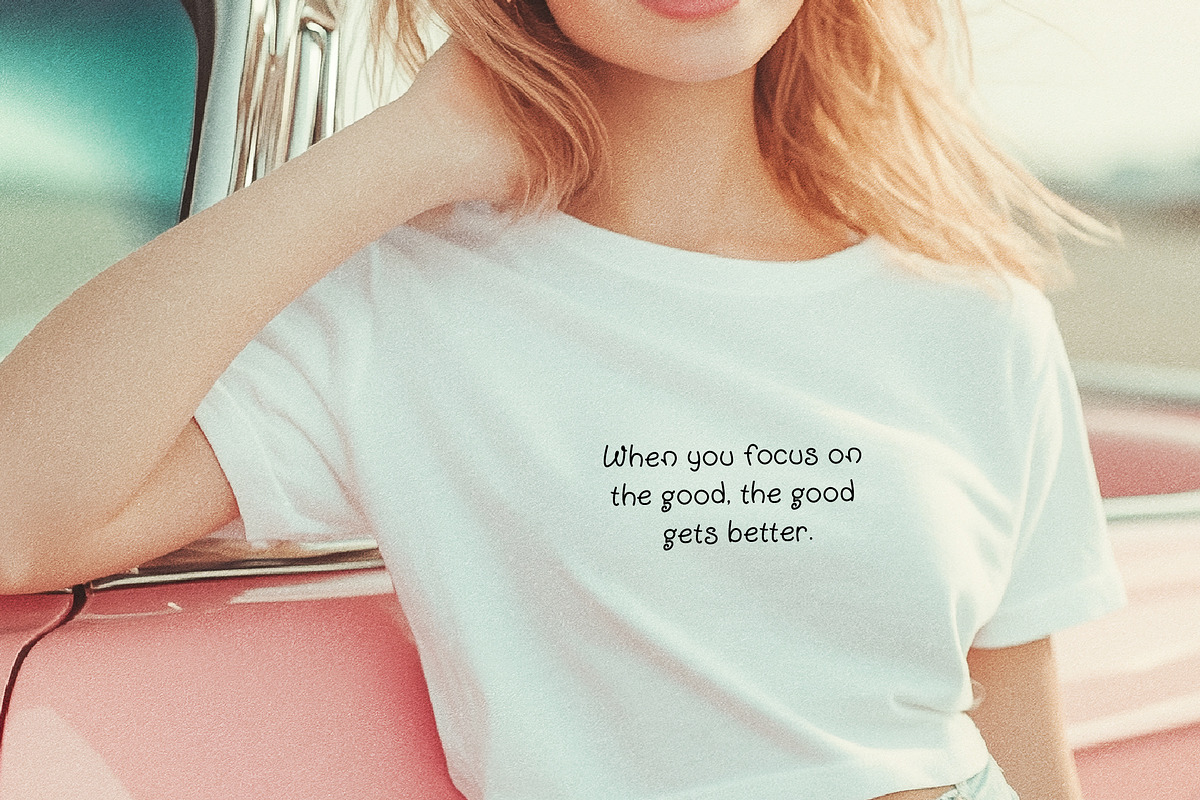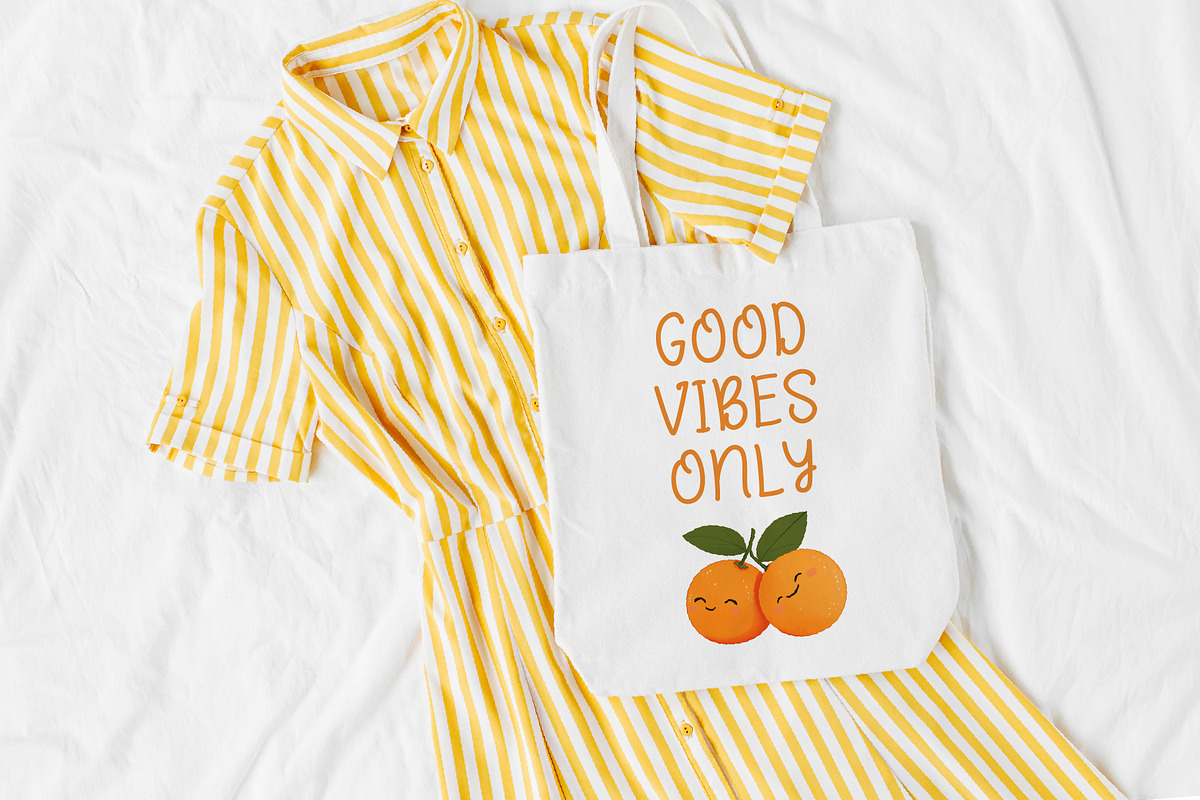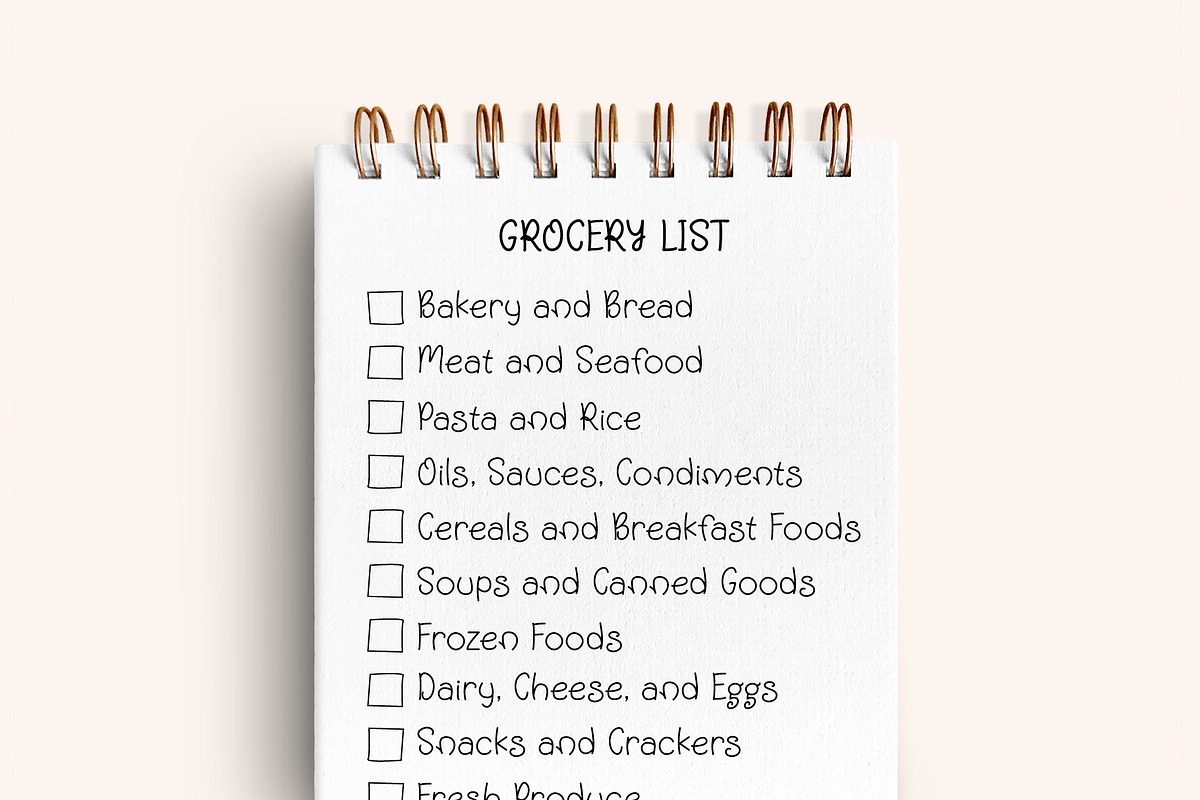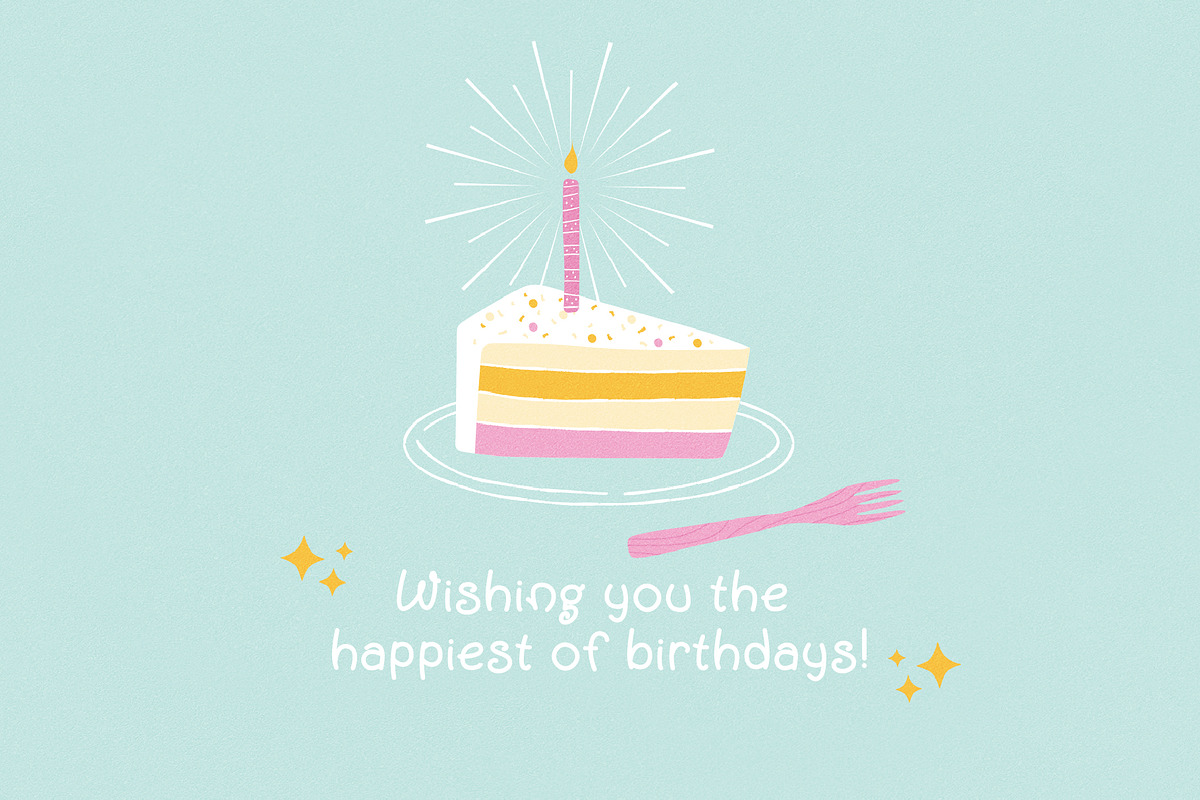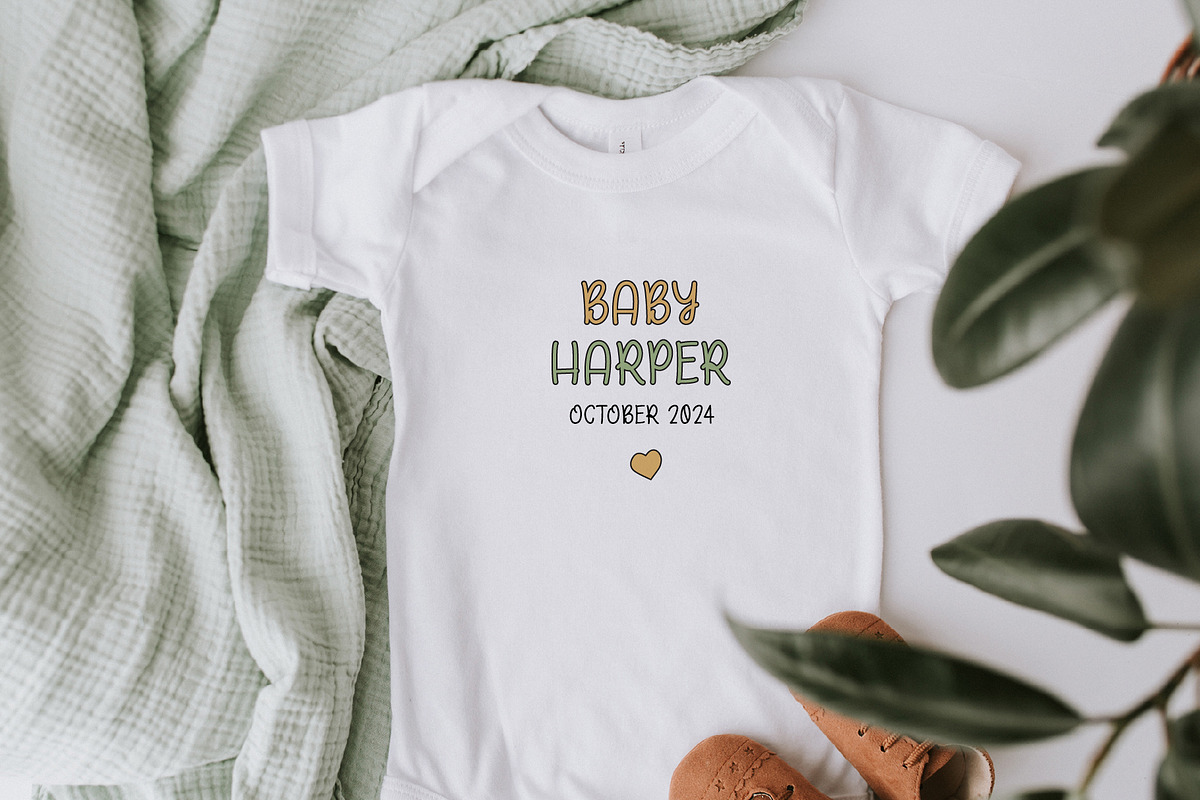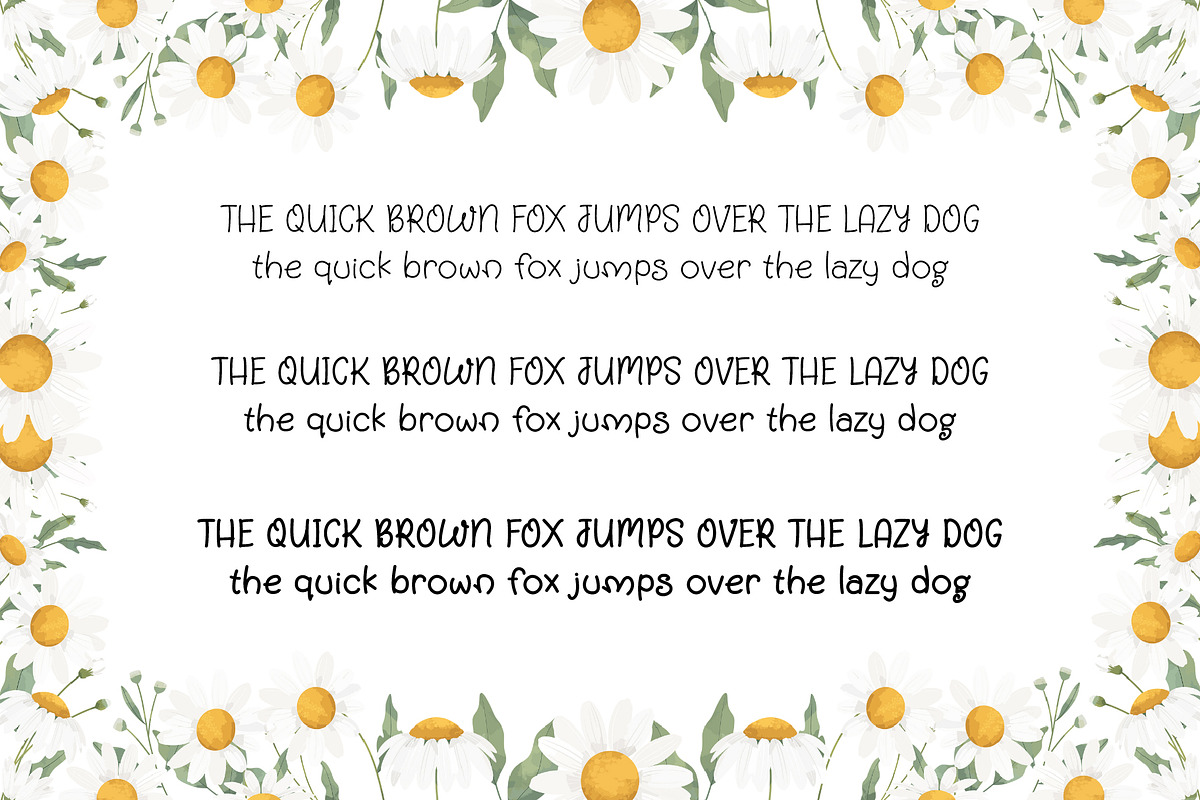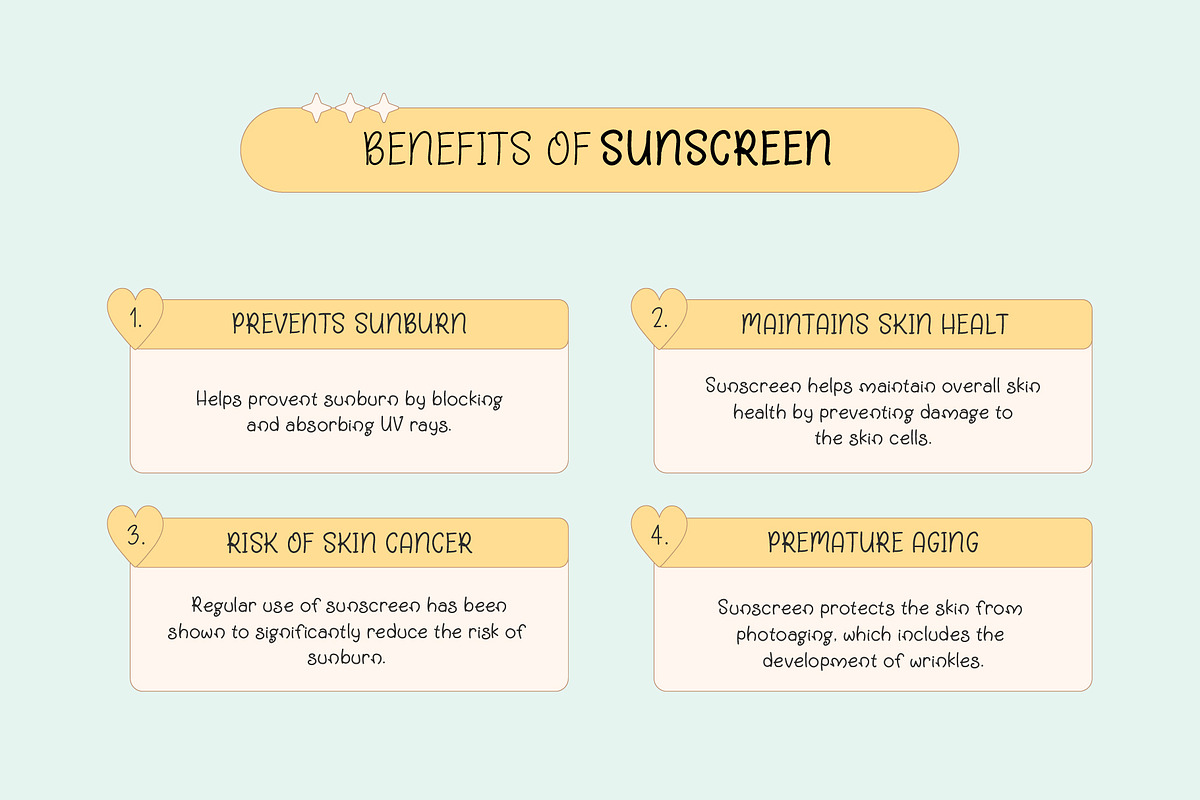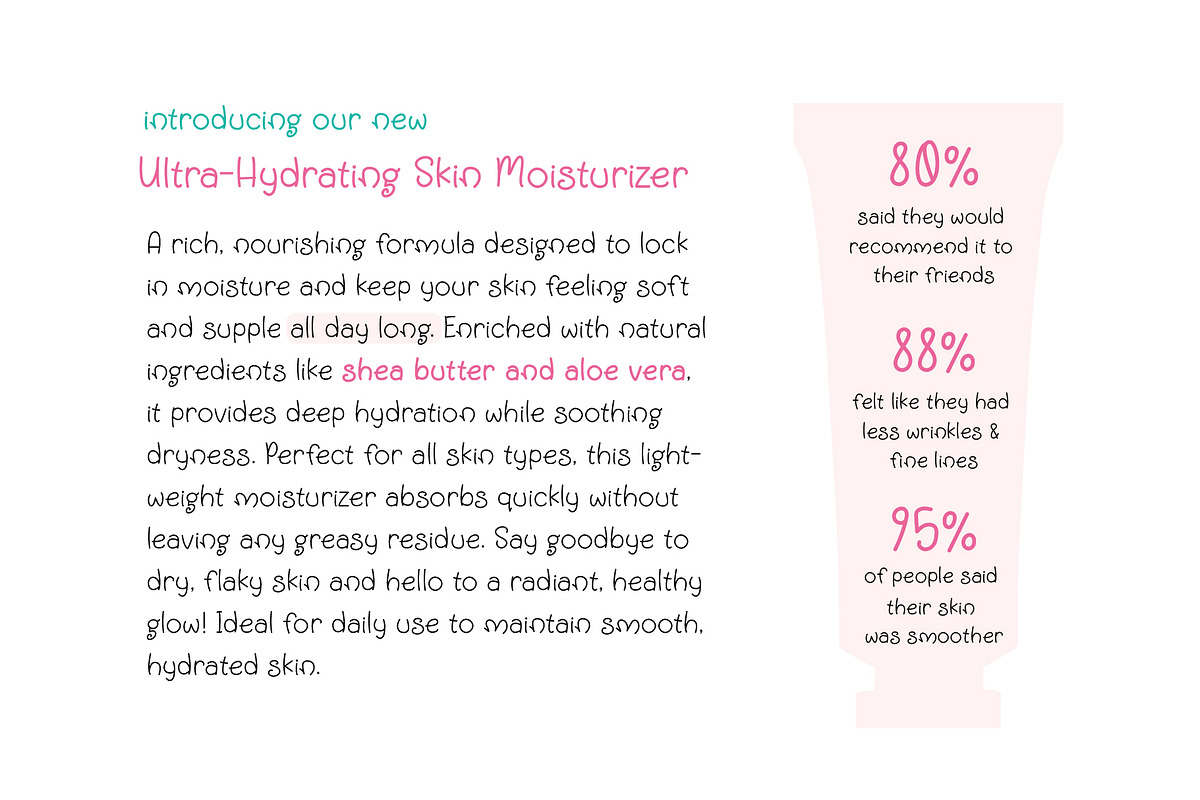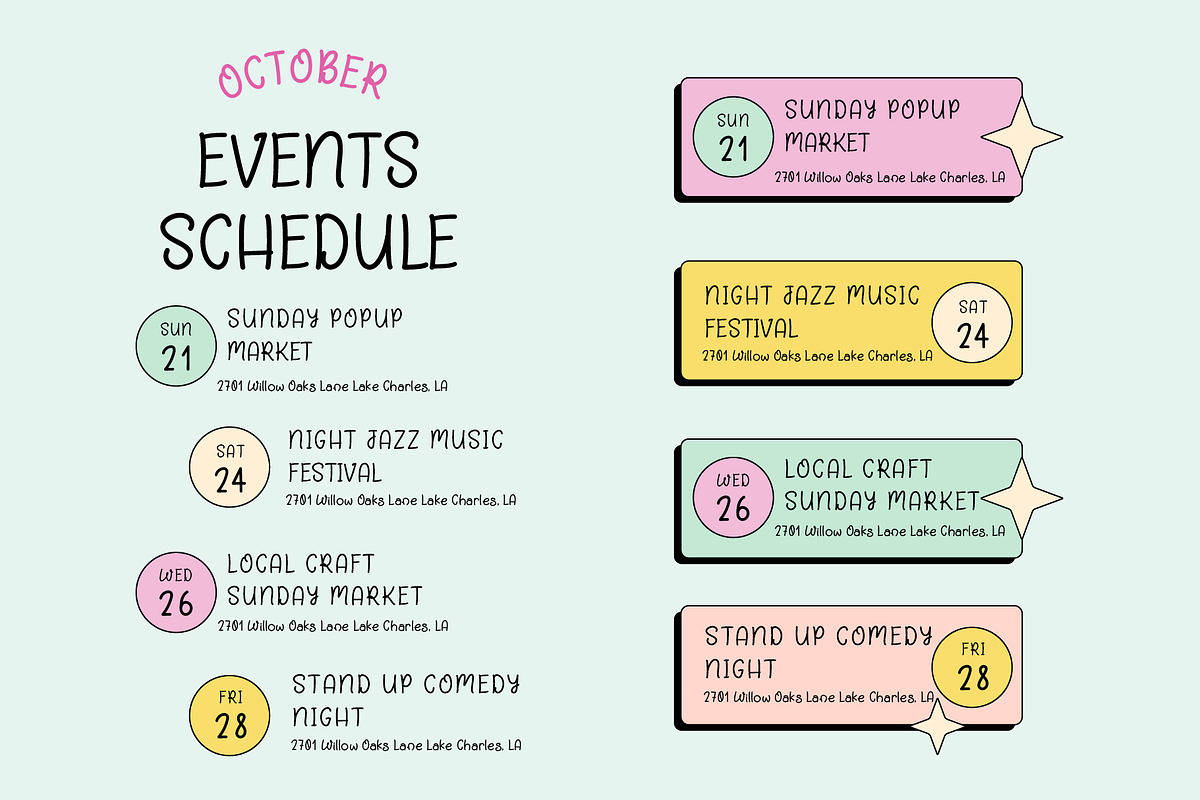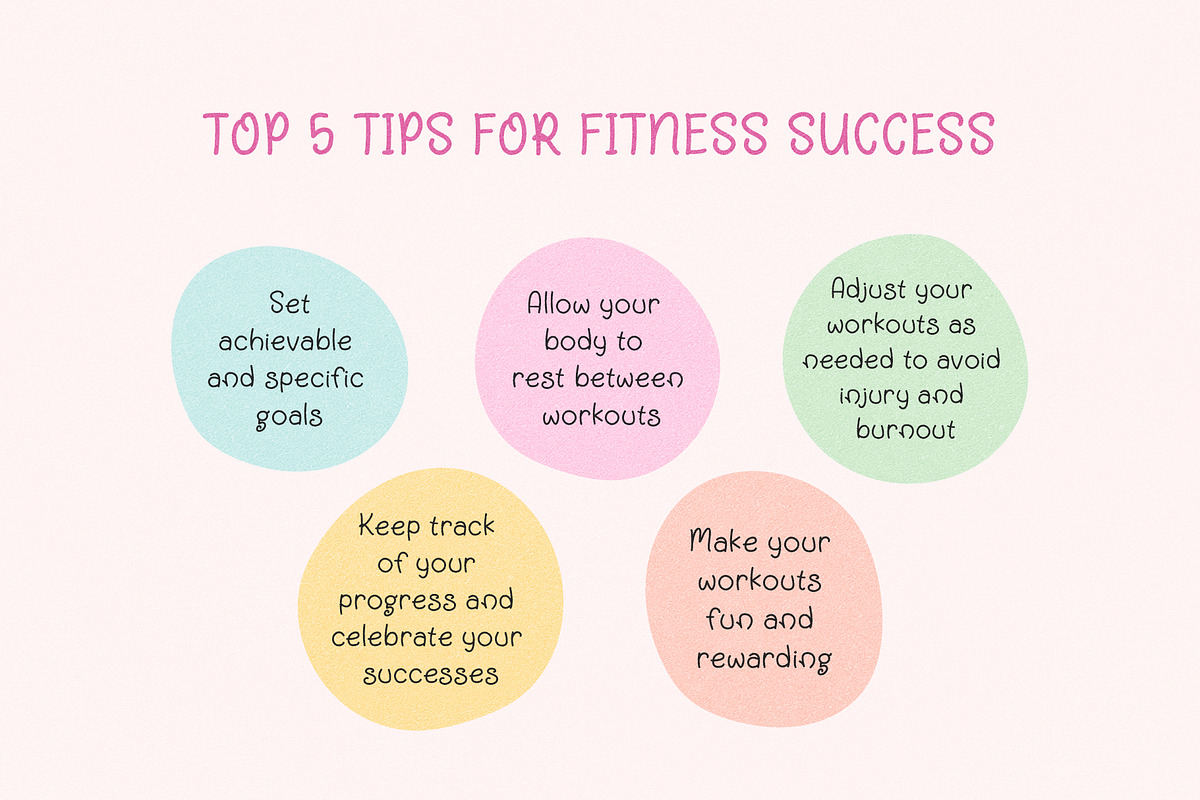
Bright Charm - Handwriting Font
Say hello to Bright Charm, a cute handwriting font that brings warmth and personality to your designs. It is great for craft projects, invitations, greeting cards, logos, branding, social media, printed goods or anything that requires cute handwritten lettering.
This versatile font comes in three weights—light, regular, and bold— and it has international characters.
FONT FEATURES
• Cute handwriting style
• Standart characters (lowercase, uppercase, numbers, punctuation)
• Multilingual characters:
• Supported Languages:
Afrikaans, Albanian, Asu, Basque, Bemba, Bena, Breton, Chiga, Colognian, Cornish, Croatian, Czech, Danish, Dutch, Embu, English, Esperanto, Estonian, Filipino, Finnish, French, Friulian, Galician, Ganda, German, Gusii, Hungarian, Inari, Sami, Indonesian, Irish, Italian, Jola-Fonyi, Kabuverdianu, Kalaallisut, Kalenjin, Kamba, Kikuyu, Kinyarwanda, Latvian, Lithuanian, Lower Sorbian, Luo, Luxembourgish, Luyia, Machame, Makhuwa-Meetto, Makonde, Malagasy, Manx, Meru, Morisyen, Northern Sami, North Ndebele, Norwegian Bokmål, Norwegian Nynorsk, Nyankole, Oromo, Polish, Portuguese, Quechua, Romanian, Romansh, Rombo, Rundi, Rwa, Samburu, Sango, Sangu, Scottish Gaelic, Sena, Serbian, Shambala, Shona, Slovak, Slovenian, Soga, Somali, Spanish, Swahili, Swedish, Swiss German, Taita, Teso, Turkish, Upper Sorbian, Uzbek (Latin), Volapük, Vunjo, Walser, Zulu.